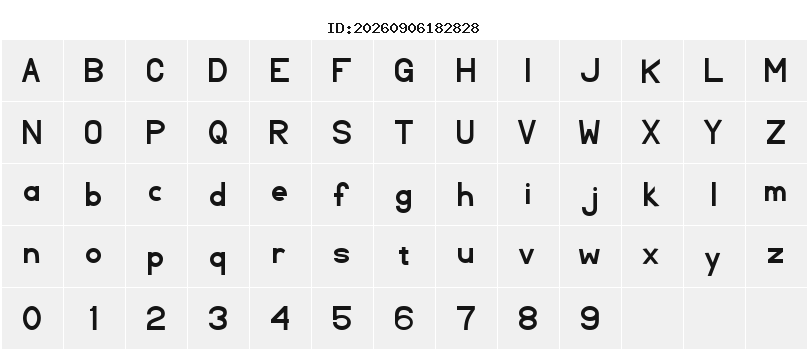
• Font Name: TL Sans Serif
About TL Sans Serif.ttf
TL Sans Serif.ttf is a modern, elegant sans-serif font designed for ultimate readability and visual harmony. Perfect for branding, headlines, web design, and print materials.